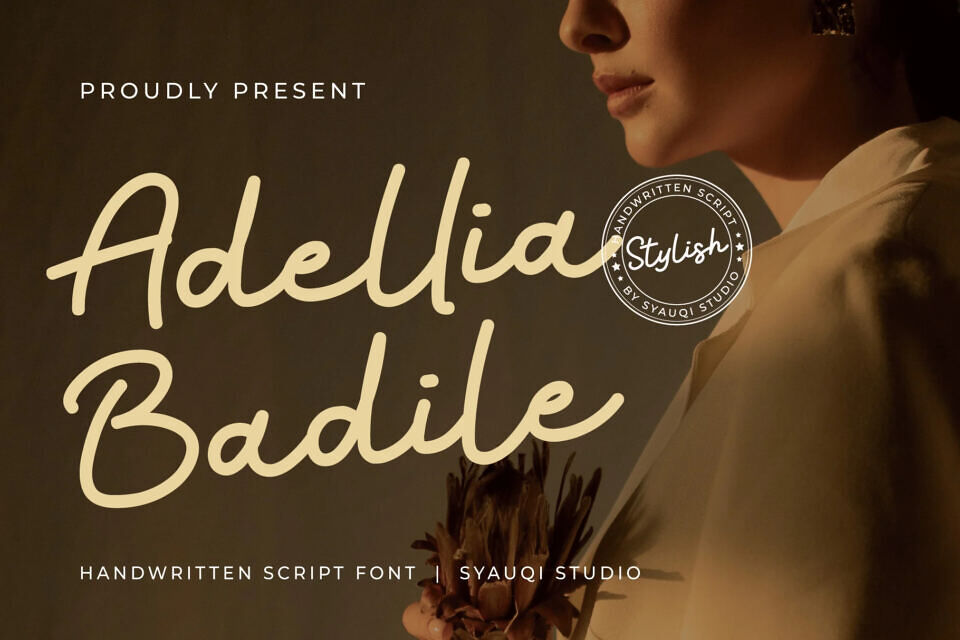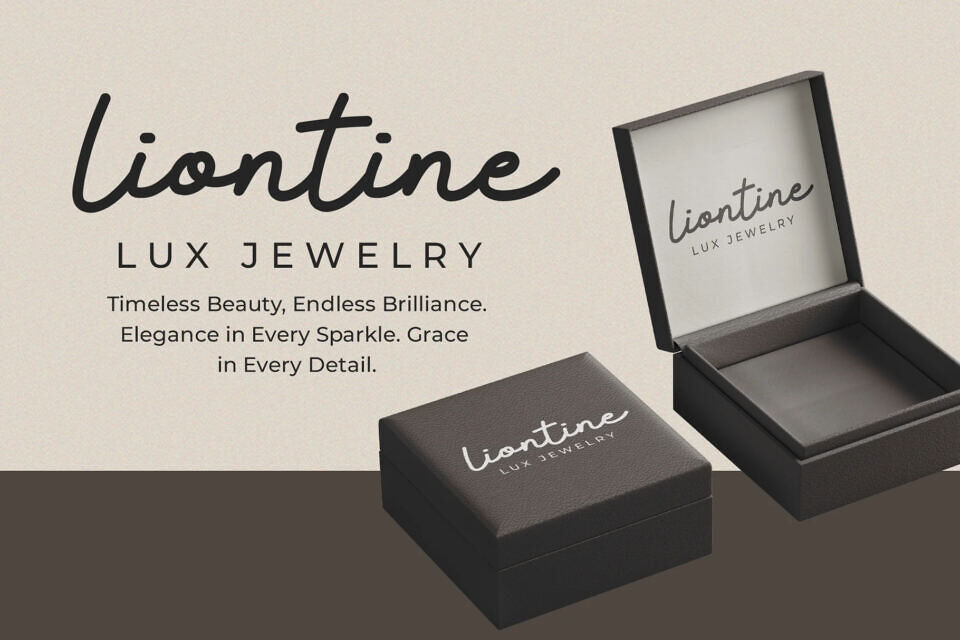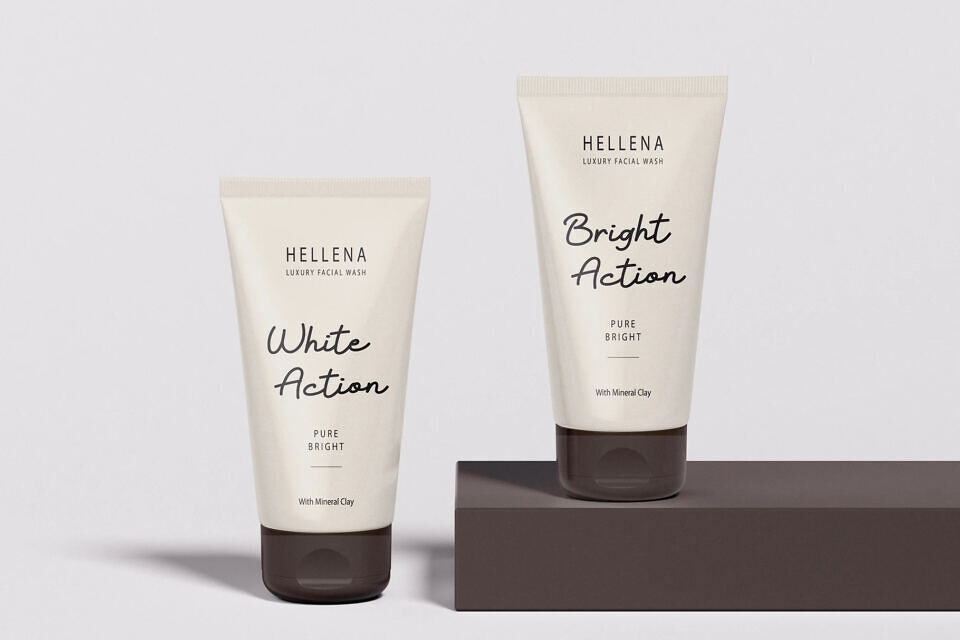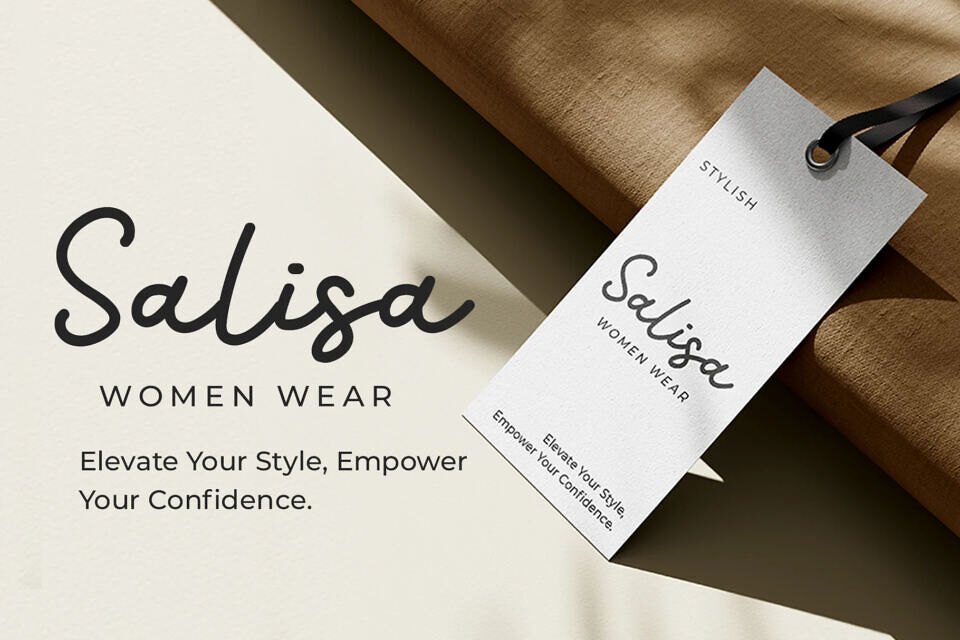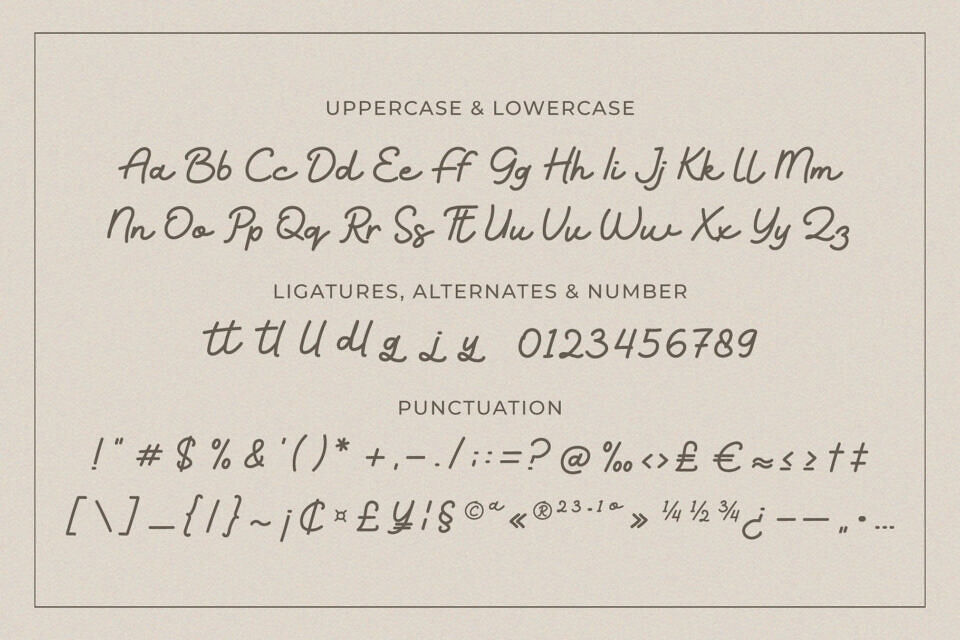
Adellia Badile is a beautifully crafted handwritten script font designed to bring elegance and sophistication to your creative projects. With its smooth, flowing curves and natural charm, this font is perfect for adding a personal touch to your designs.
Whether you’re working on fashion and apparel branding, beauty and cosmetics marketing, wedding invitations, luxury perfume packaging, or jewelry designs, Adellia Badile will make your text stand out with a refined and classy look.